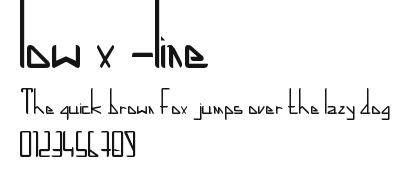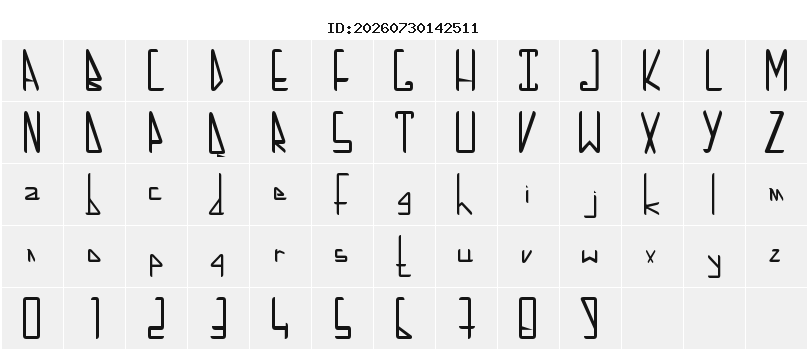
low x -line Preview
About low x -line.ttf
low x -line.ttf is a modern, elegant sans-serif font designed for ultimate readability and visual harmony. Perfect for branding, headlines, web design, and print materials.